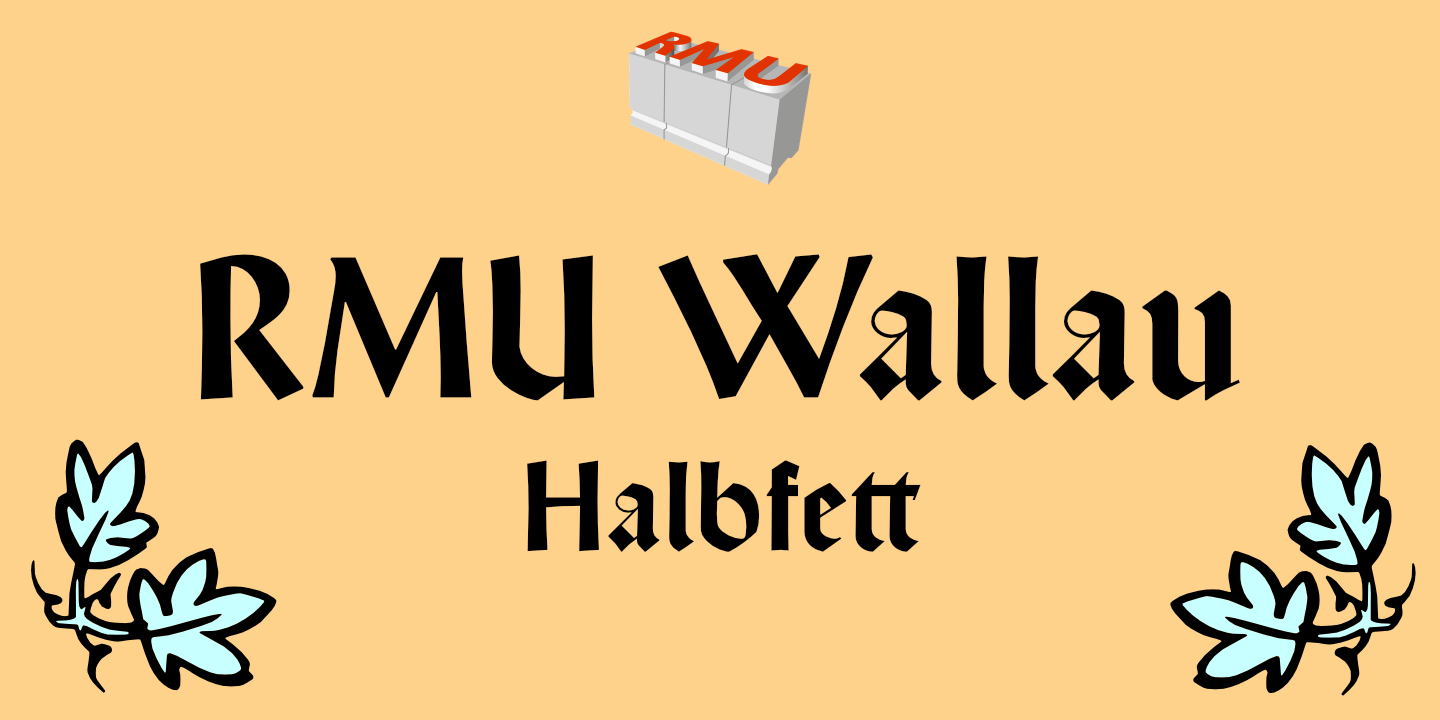
This classical blackletter font is perfect for traditional publishing, historical document design, medieval-themed branding, Gothic revival marketing, heritage institution signage, ceremonial certificates, vintage brewery logos, and distinguished design projects that honor Germanic typographic tradition and medieval craftsmanship.
RMU Wallau Font is exciting because it embodies Germanic heritage with its traditional blackletter forms that echo centuries of calligraphic mastery and medieval manuscript artistry. The font delivers historical authority while maintaining classical readability that connects modern design with ancient traditions.
The RMU Wallau Font family includes regular and ornamental versions with Gothic decorative elements, medieval symbols, and traditional ornaments, providing designers with comprehensive tools for creating heritage typography that honors Germanic typographic excellence.
Ready to honor typographic tradition? RMU Wallau Font Free Download offers designers classical letterforms that resonate with Germanic heritage and medieval sophistication. This distinguished typeface combines blackletter aesthetics with professional functionality, making it ideal for heritage institutions, traditional publishers, and ceremonial applications. Whether you're designing historical documents, traditional certificates, or heritage brand materials, this font delivers authoritative appeal. The traditionally crafted characters feature Gothic precision while maintaining excellent readability across ceremonial applications. Perfect for businesses in historical preservation, traditional crafts, heritage tourism, and classical education that celebrate Germanic culture and medieval artistry. The font's traditional construction creates memorable brand recognition that resonates with history enthusiasts worldwide. Each letter showcases deliberate craftsmanship that mirrors the timeless beauty of medieval manuscripts. Download today and honor typographic heritage in your creative projects with this premium blackletter font that transforms ordinary text into extraordinary expressions of Germanic tradition and the masterful artistry of RMU Wallau Font Free Download heritage.